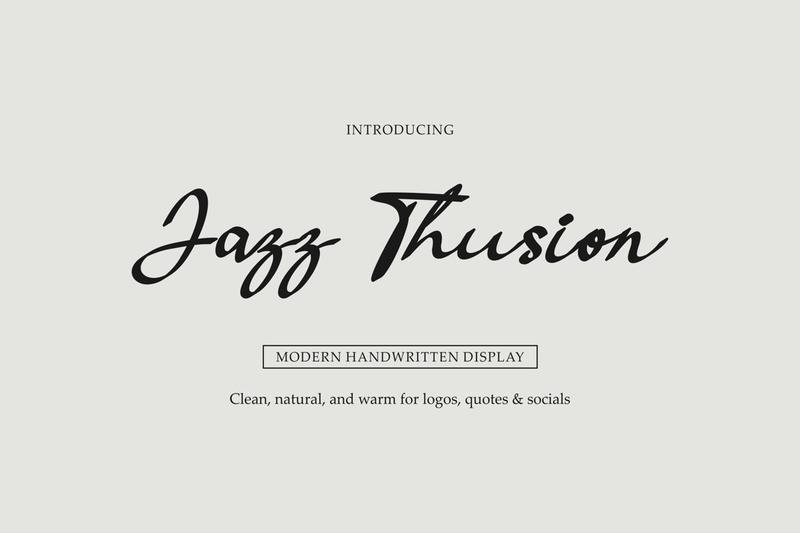
Jazz Thusion – New Handwritten Style KG3DZQY
Introducing our new product **Jazz Thusion** – New Handwritten Style
**Jazz Thusion** – New Handwritten Style is a regular and authentic display font. The font is suitable for any branding project like logo, esport, and many more. outstanding in a wide range of contexts.